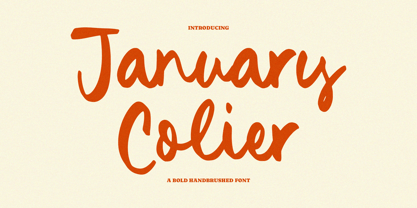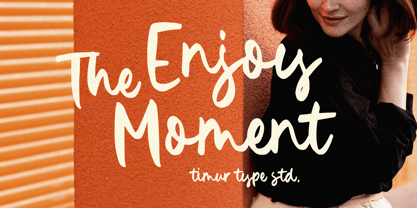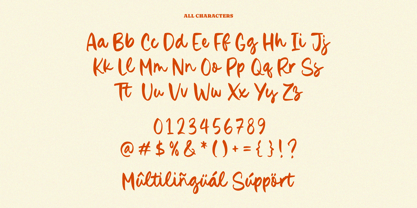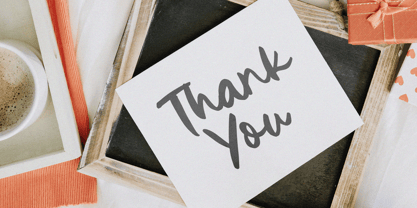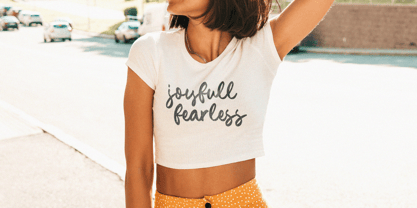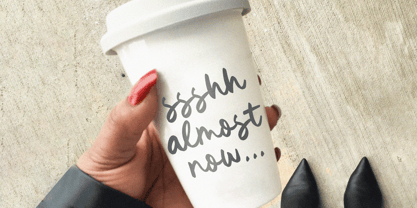
January Colier
by Timurtype
The January Colier Font Family was designed by Wara Sigit Tri Pamungkas and published by Timurtype. January Colier contains 1 styles.
Introduced by Timurtype Studio!
January Colier is a Bold Handbrushed Font
This font is a bold, hand-brushed font that exudes flair. With its expressive strokes and organic flow, it captures the raw energy of brush lettering, making it perfect for eye-catching headlines, creative branding, posters, and artistic designs. This font combines modern edge with handcrafted charm, adding a touch of bold elegance to any project.
January Colier Font also supports multilingualism
Designers: Wara Sigit Tri Pamungkas
Publisher: Timurtype
Foundry: Timurtype